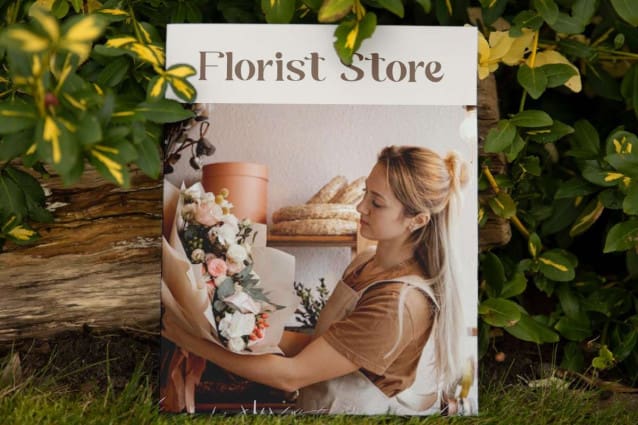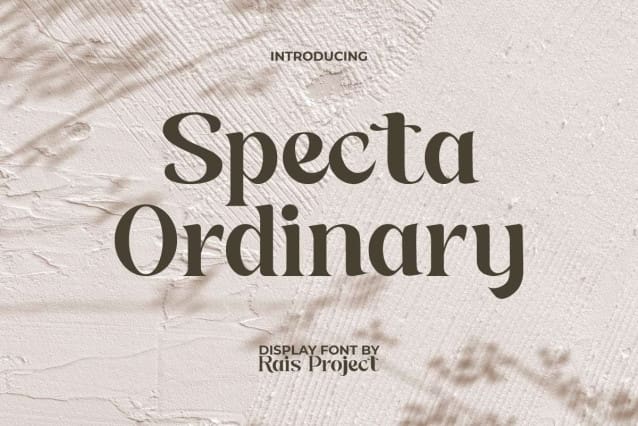
Specta Ordinary Font
Specta Ordinary Font is a charming display font inspired from classic serif style. The little waves at each letters make it look cute and a bit vintage at the same time. It will be good for any designs, such as brand logo, business card, cover, custom design, feed design, invitation, label, magazine, menu, poster, product packaging, quote, signage, web, and more!
Specta Ordinary Font includes a full set of Uppercase and Lowercase Letters, Numerals, Punctuation, and Symbol. This stylish font will be suitable for various industries, such as accessories, café, event, fashion, florist, photography, printing, publishing, restaurant, retail, skincare, spa salon, etc.